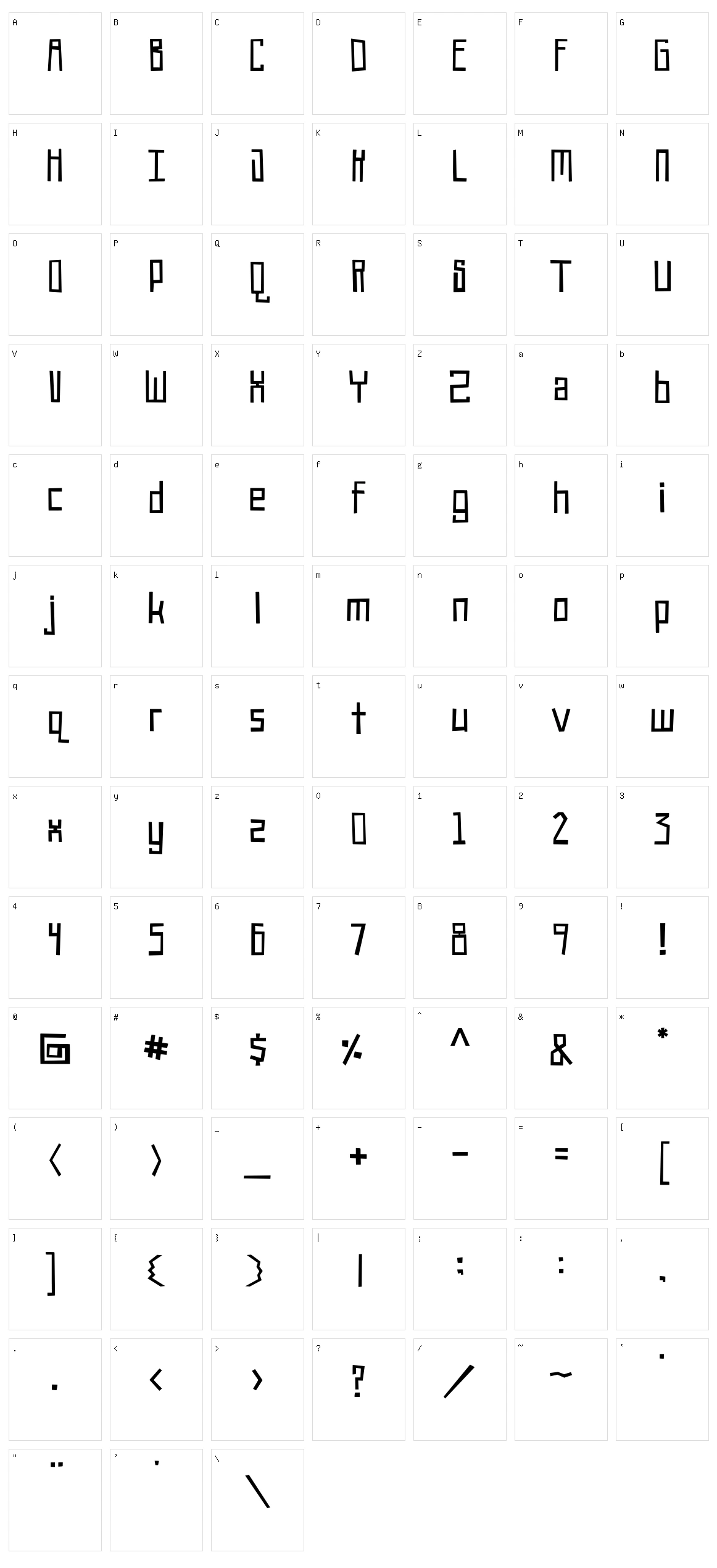
The free font Robot!Head is carefully designed by Dirt2.com - SickCapital, showcasing a thoughtful balance of creativity and usability and falls under the Cartoon font style. When you download the ZIP file, it contains only 21.02 KB of font files, making it lightweight and quick to download. Please review the license details below to understand permitted usage and distribution rights. If license information is not available, we recommend using this font for personal projects only or contacting the author directly for commercial usage permissions.